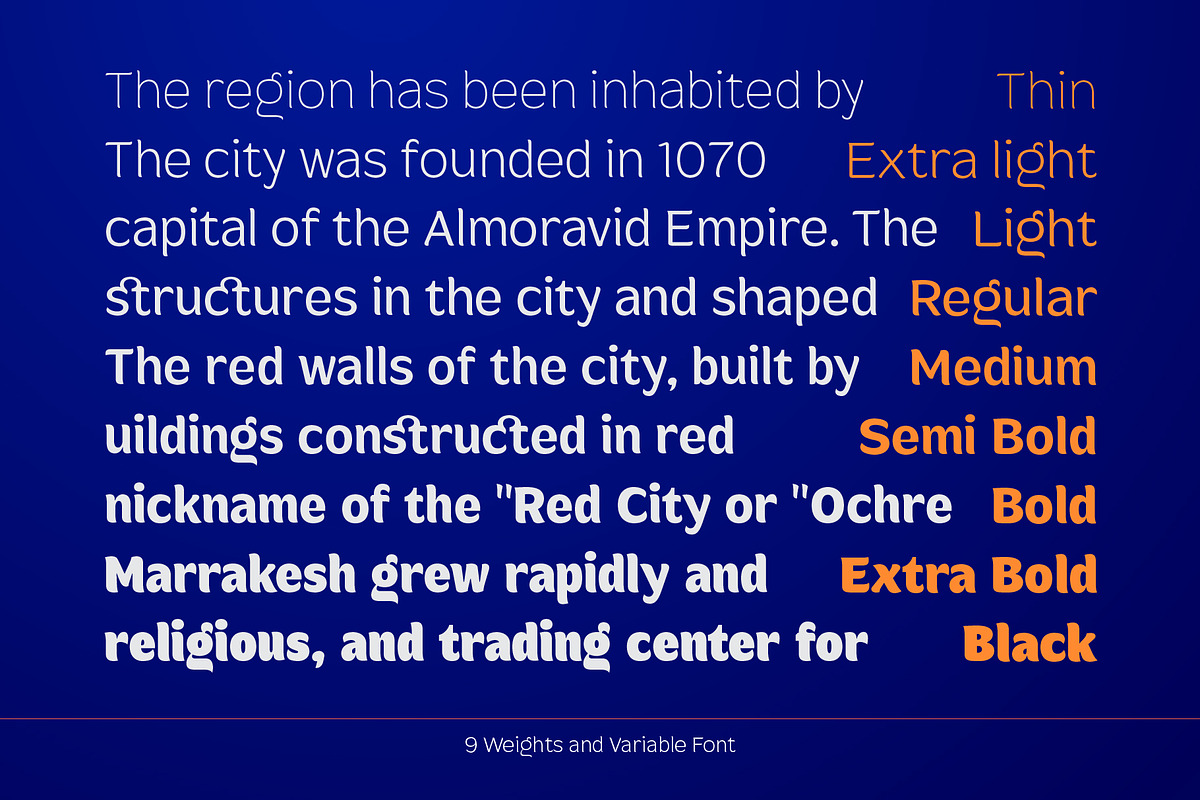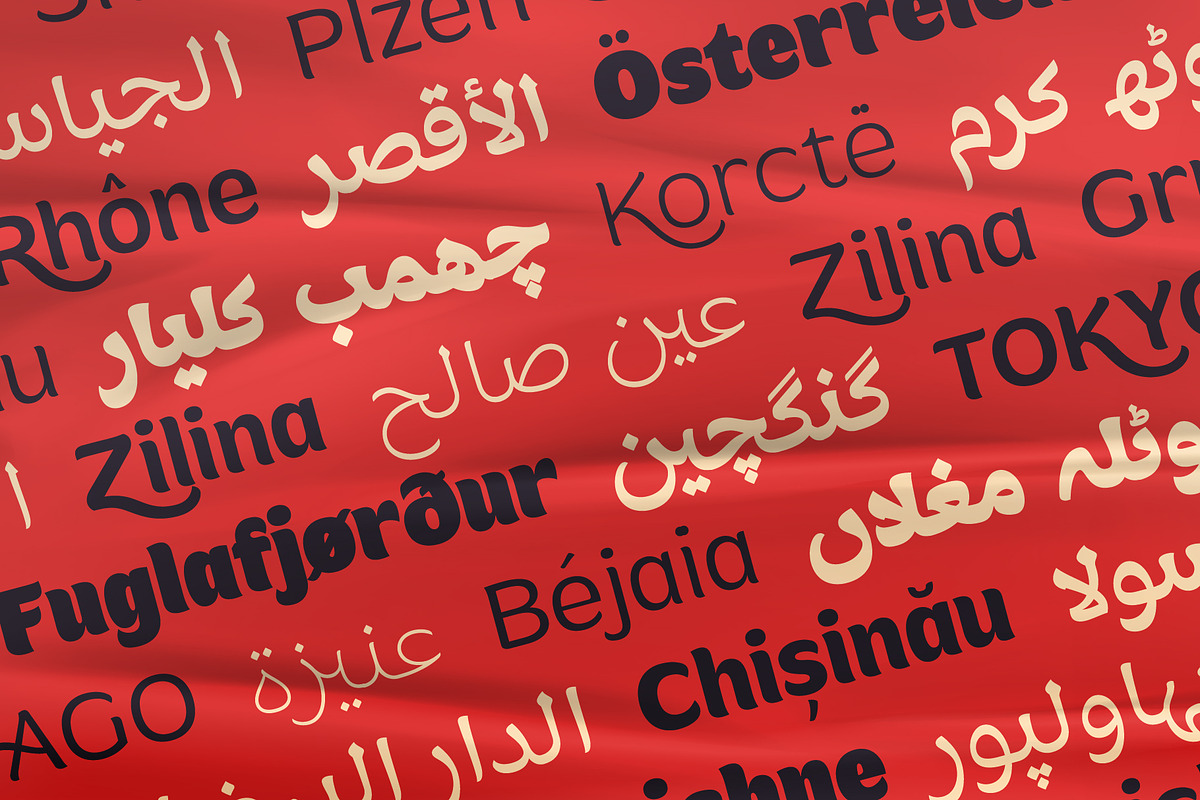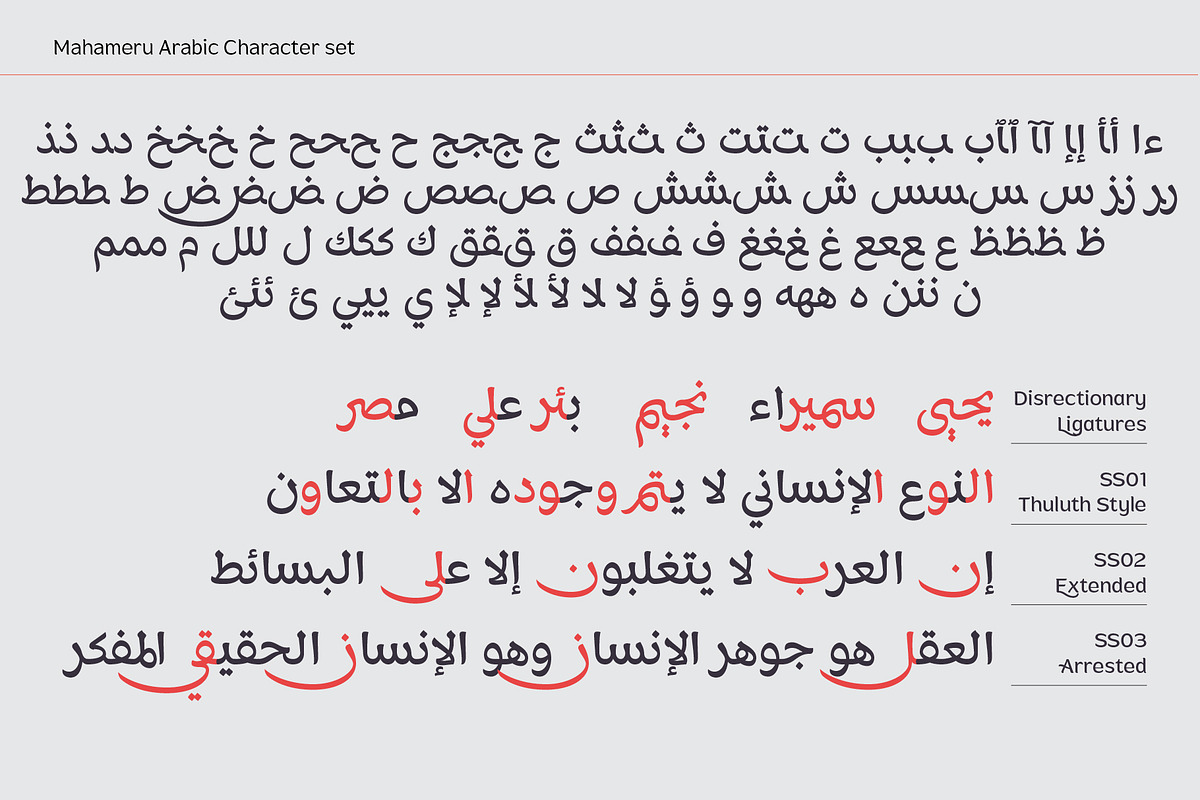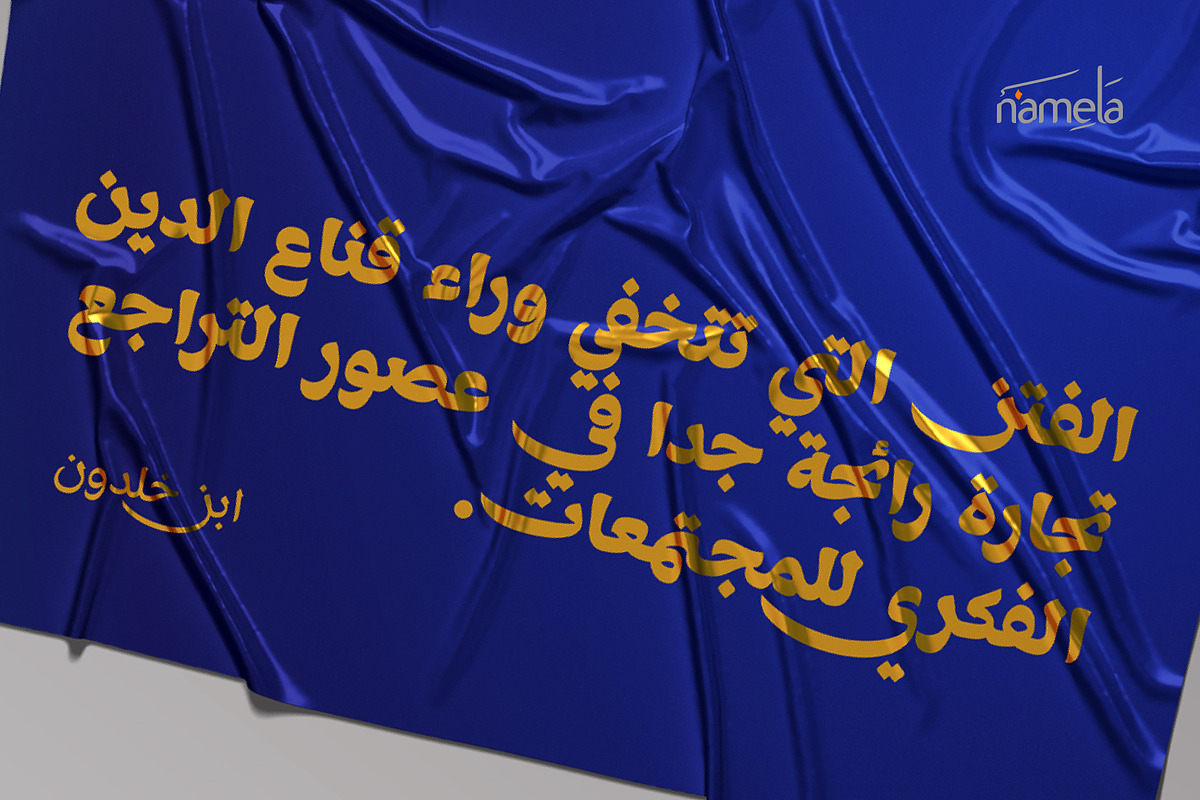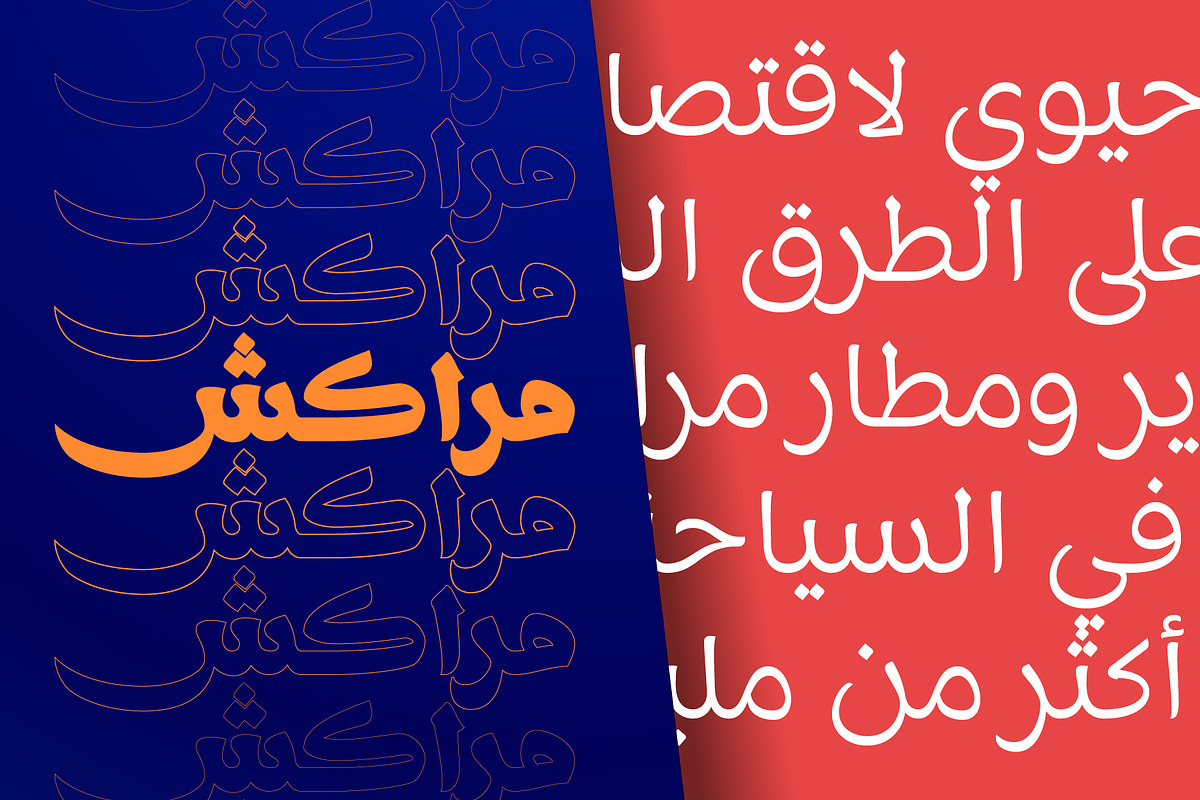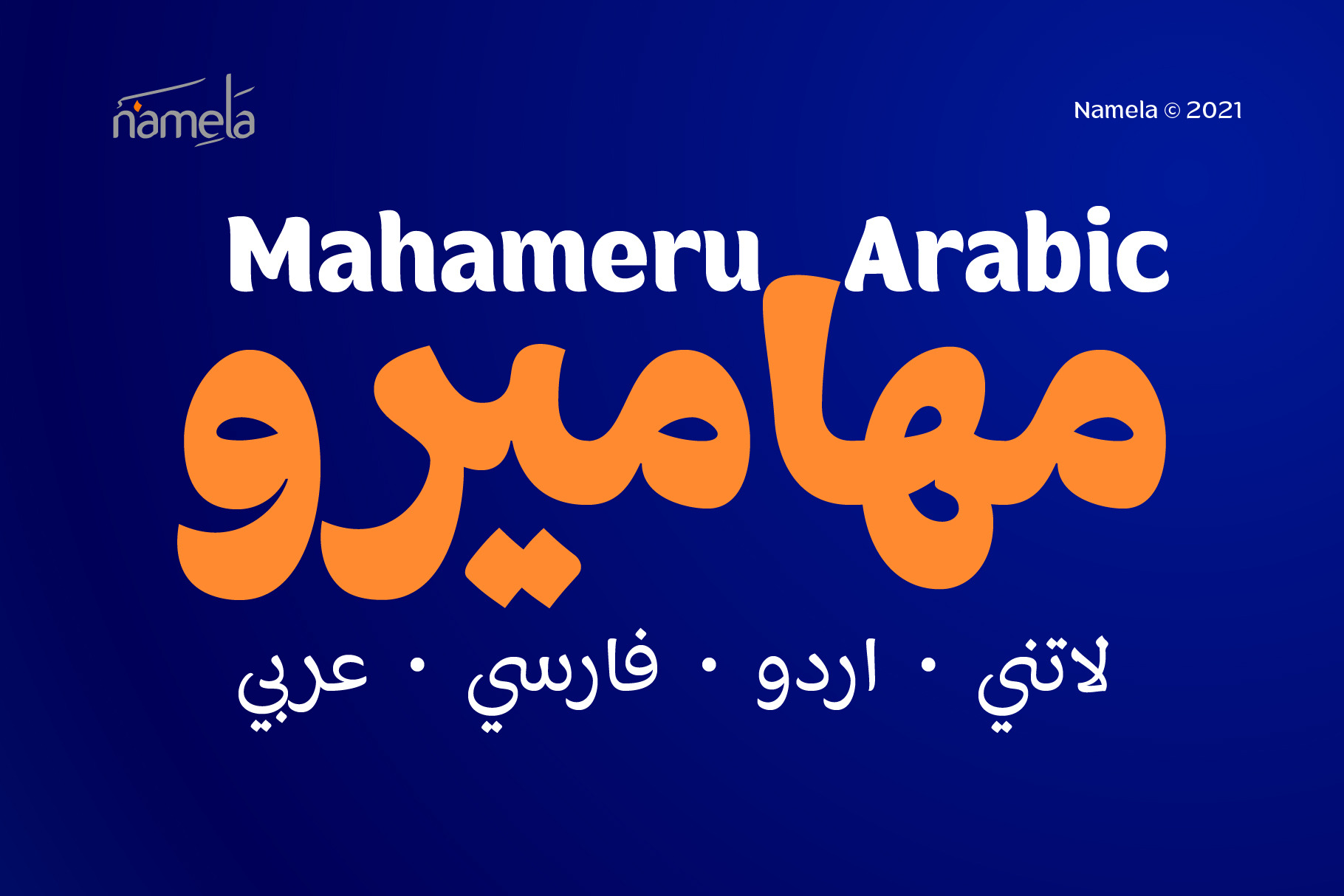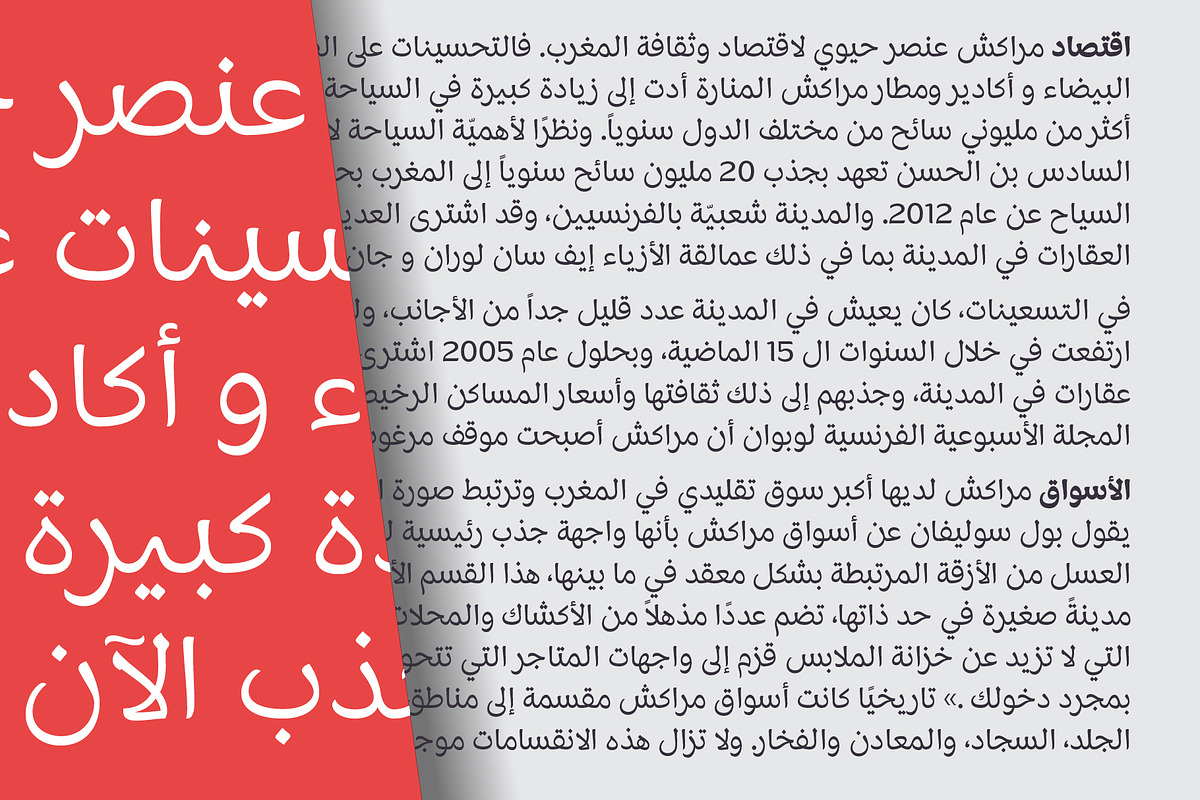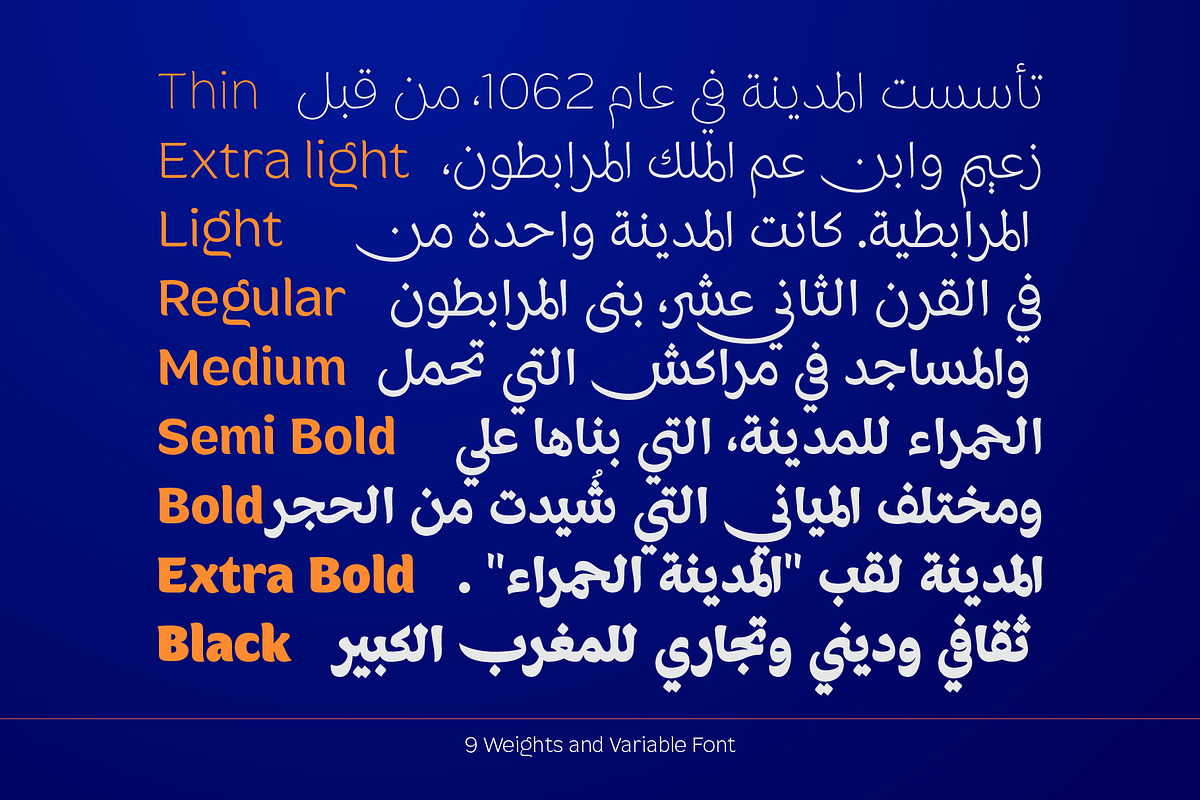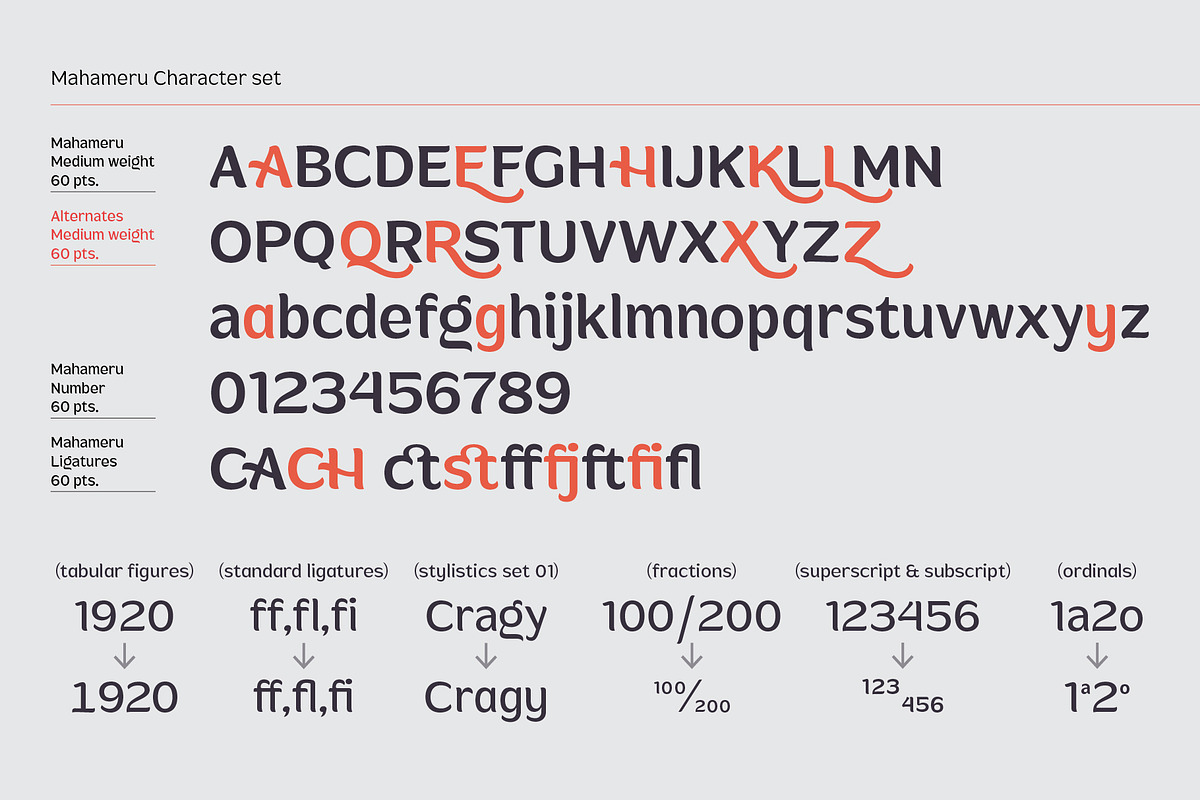
Mahameru Latin & Arabic Elegant Font
Mahameru Arabic Elegant font continues to embody the harmonious blend of firmness and softness, a unique characteristic with terminal points found on both straight and curved strokes. In addition to its Latin script, Mahameru Arabic Font includes Arabic glyphs to cater to Arabic, Urdu, and Farsi scripts, ensuring a seamless integration for multilingual design projects.
With a family comprising 9 meticulously crafted weights, spanning from Thin to Black, Mahameru Arabic Elegant Display Font provides a rich typographic palette. This versatility, combined with a host of features, empowers designers to select the perfect typographic style, adding clarity, elegance, and strength to their creative projects. It’s a font family that adapts seamlessly to diverse linguistic and design contexts, promising to elevate your message with impact and grace.